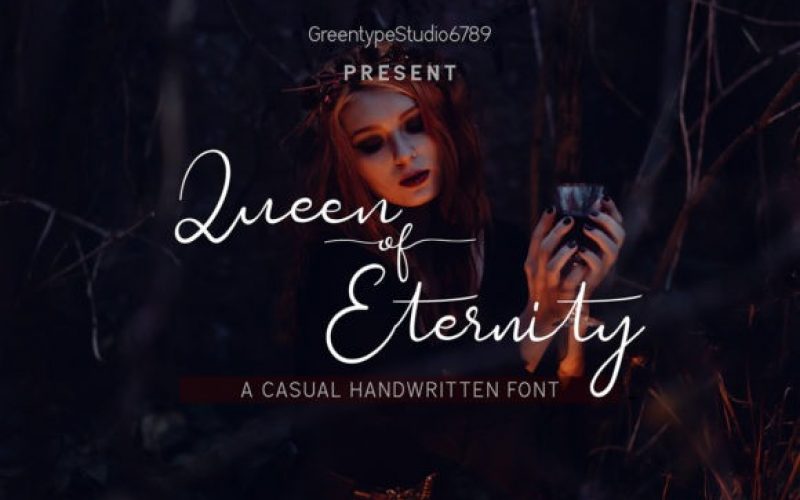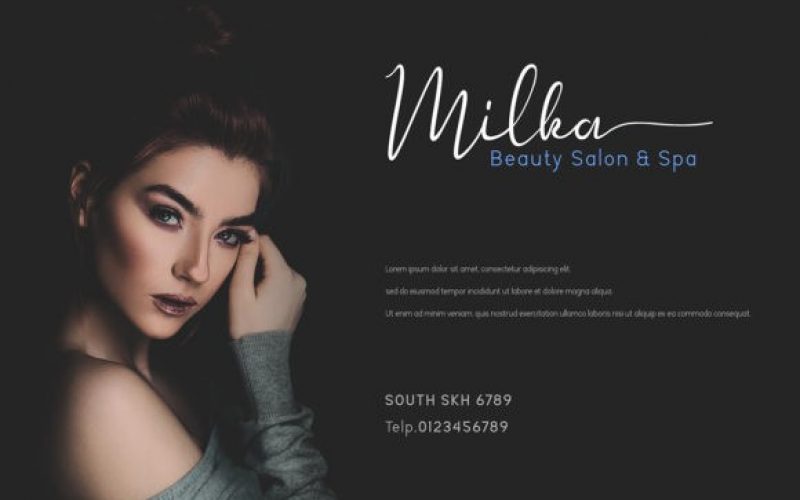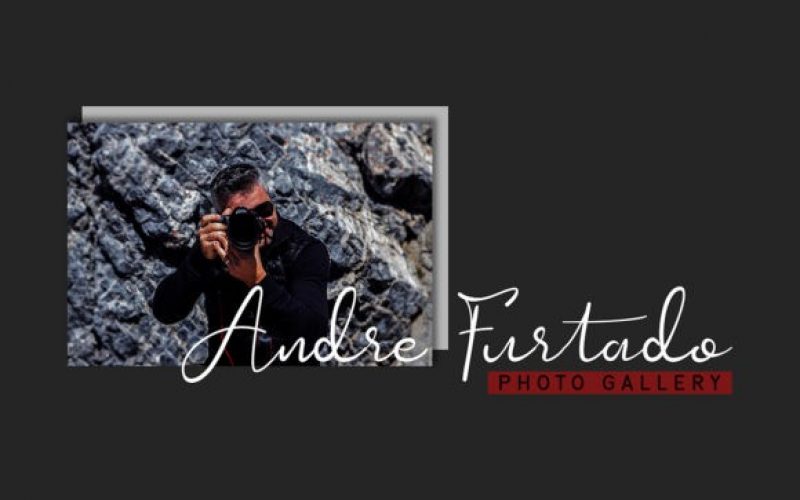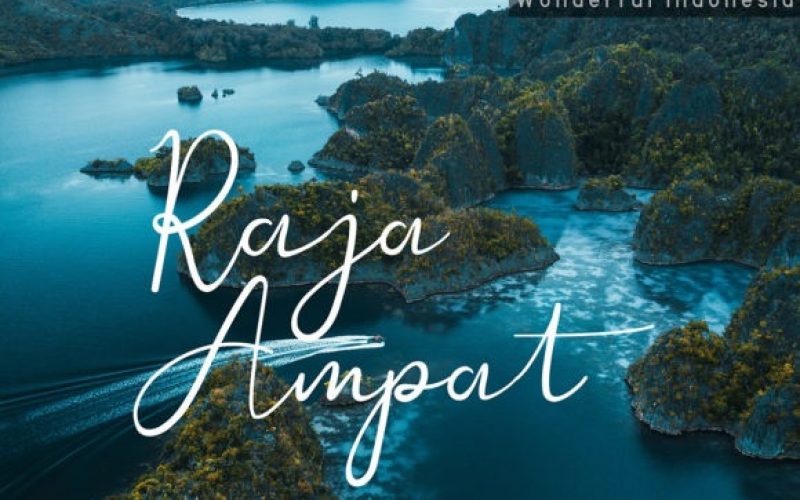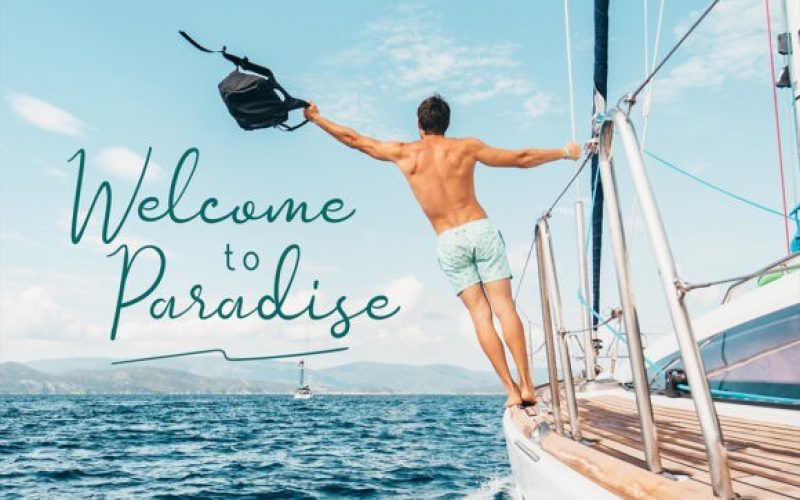
Queen of Eternity Handwritten Font
Queen of Eternity is a casual handwritten font, featuring a joyful flow. This original look will appeal to a wide range of crafty ideas, from letterheads and titles, to stationery.
Classification: | Handwritten Fonts, Script Fonts |